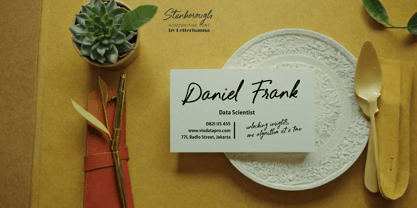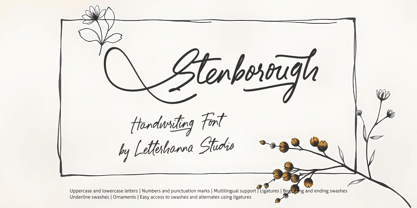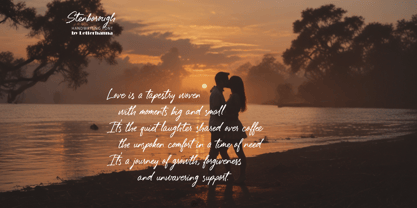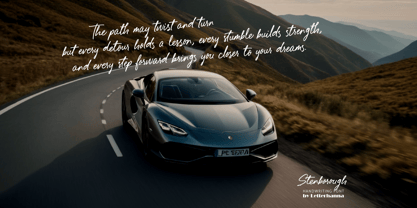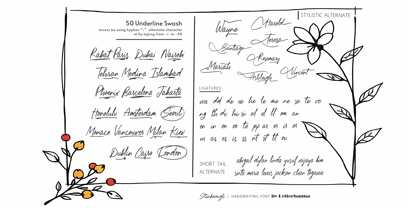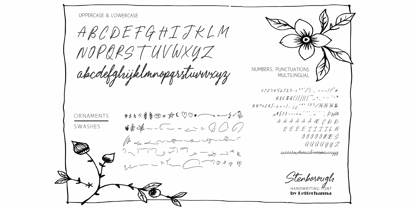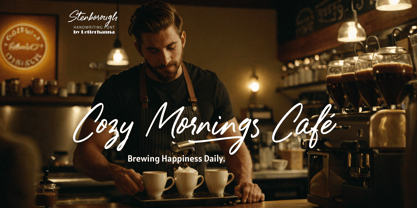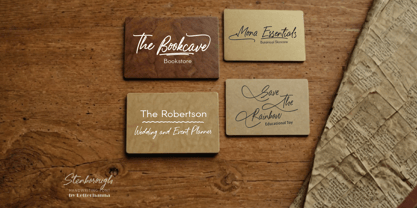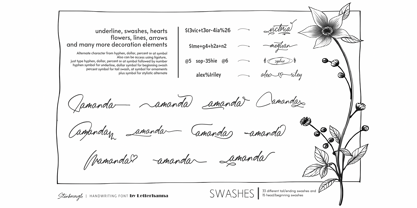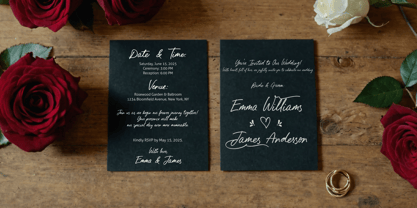
Stenborough
by Letterhanna Studio
The Stenborough Font Family was designed by Rinaldo Hasibuan and published by Letterhanna Studio. Stenborough contains 1 styles. More about this family
Meet Stenborough, a sophisticated handwriting script font that exudes charm and artistry. Designed for those who appreciate the beauty of calligraphy, Stenborough offers a natural yet refined flow, making it perfect for branding, invitations, packaging, and editorial design.
With an abundance of stylistic alternates, swashes, and ligatures, this font allows endless customization to elevate your typography. Whether you're crafting a luxurious logo or an eye-catching headline, Stenborough provides versatility and elegance in every stroke.
Designers: Rinaldo Hasibuan
Foundry: Letterhanna Studio